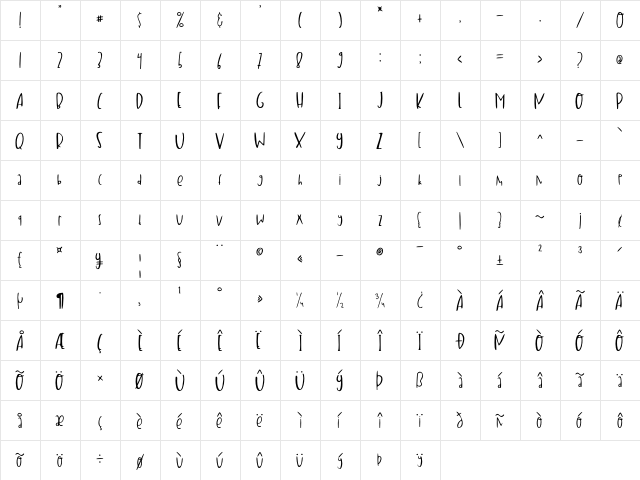
Childkid Regular Font Preview
Childkid Regular
Childkid Regular Font Details
| Designer | Arief Tri Sulistiyono |
Design Context for Childkid Typeface
Childkid trades formality for fun, with bouncy, characterful letterforms that bring warmth and energy to any project.
Font Pairing: Pairs well with a rounded or humanist sans for body copy, maintaining the friendly tone without relying on Childkid to carry extended reading.
Pro Tip: Use Childkid at larger display sizes where its expressive character can land. Pair with a clean, simple sans for body copy to maintain readability.